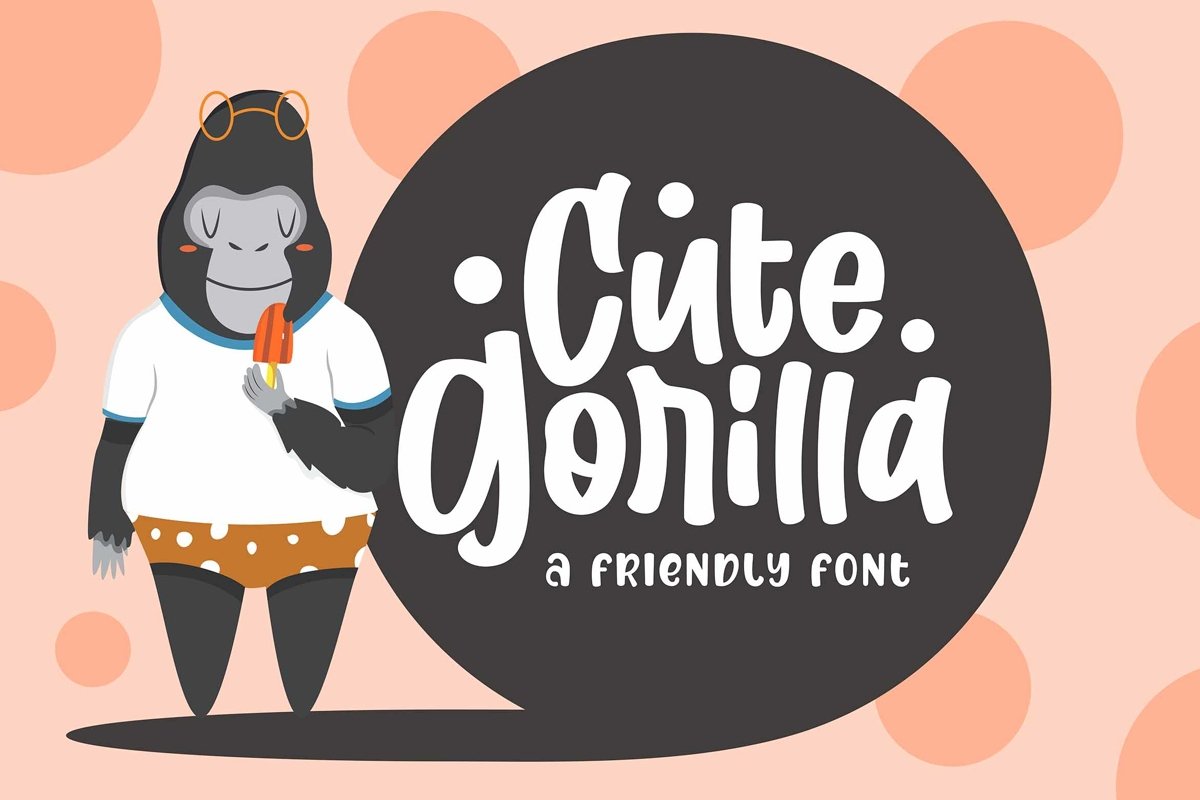
Cute Gorilla / Quirky Font
Cute Gorilla
Cute Gorilla is a cheerful and friendly handwritten font. It will elevate a wide range of design projects to the highest level, be it branding, headings, wedding designs, invitations, signatures, logos, labels, and much more!